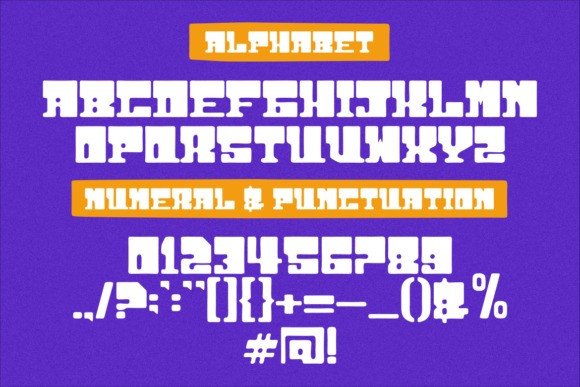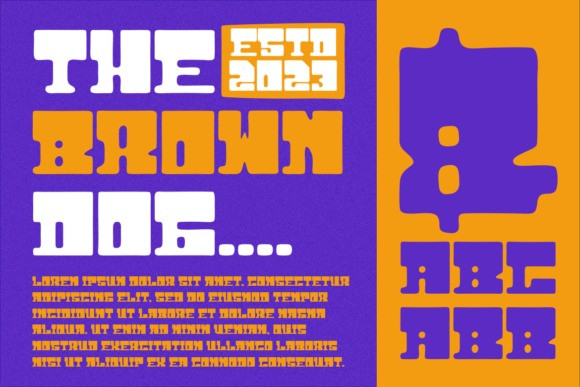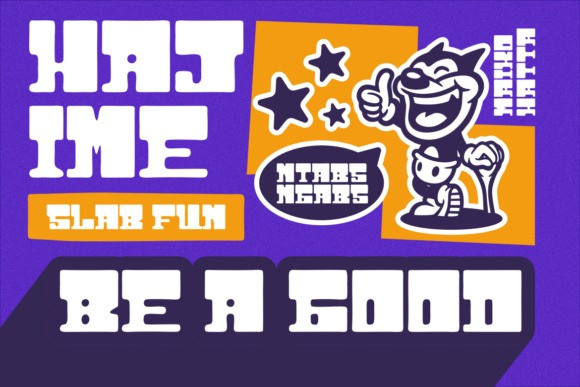
Hajime Font
Hajime Font – Modern Font is a bold and authentic display font. The font is suitable for any branding project like logo, template design, esport, and many more. Outstanding in a wide range of contexts.